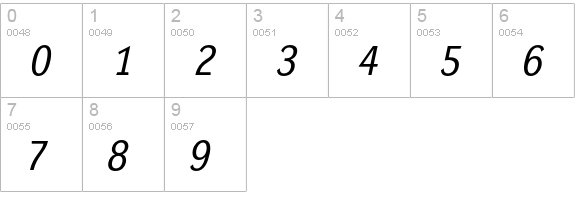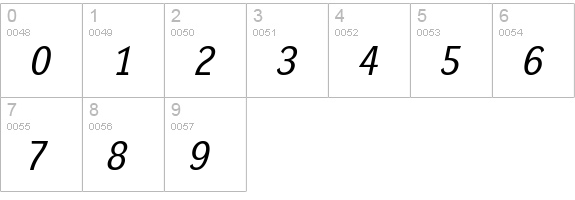
Dynamo Italic R is a distinctive, italic variant in the Dynamo typeface family \xE2\x80\x94 well suited to design and typography projects.
Dynamo Italic R font is a stylish and modern typeface that exudes sophistication and elegance. Its sleek lines and dynamic curves make it perfect for adding a touch of flair to your designs. Whether you're creating a logo, branding materials, or body text, Dynamo Italic R font is sure to make a statement. Best of all, this font is completely free to download at FontsMarket.com. Yes, you read that right - you can enhance your projects with this stunning font without spending a dime. So why wait? Add Dynamo Italic R font to your collection today and let your creativity soar!